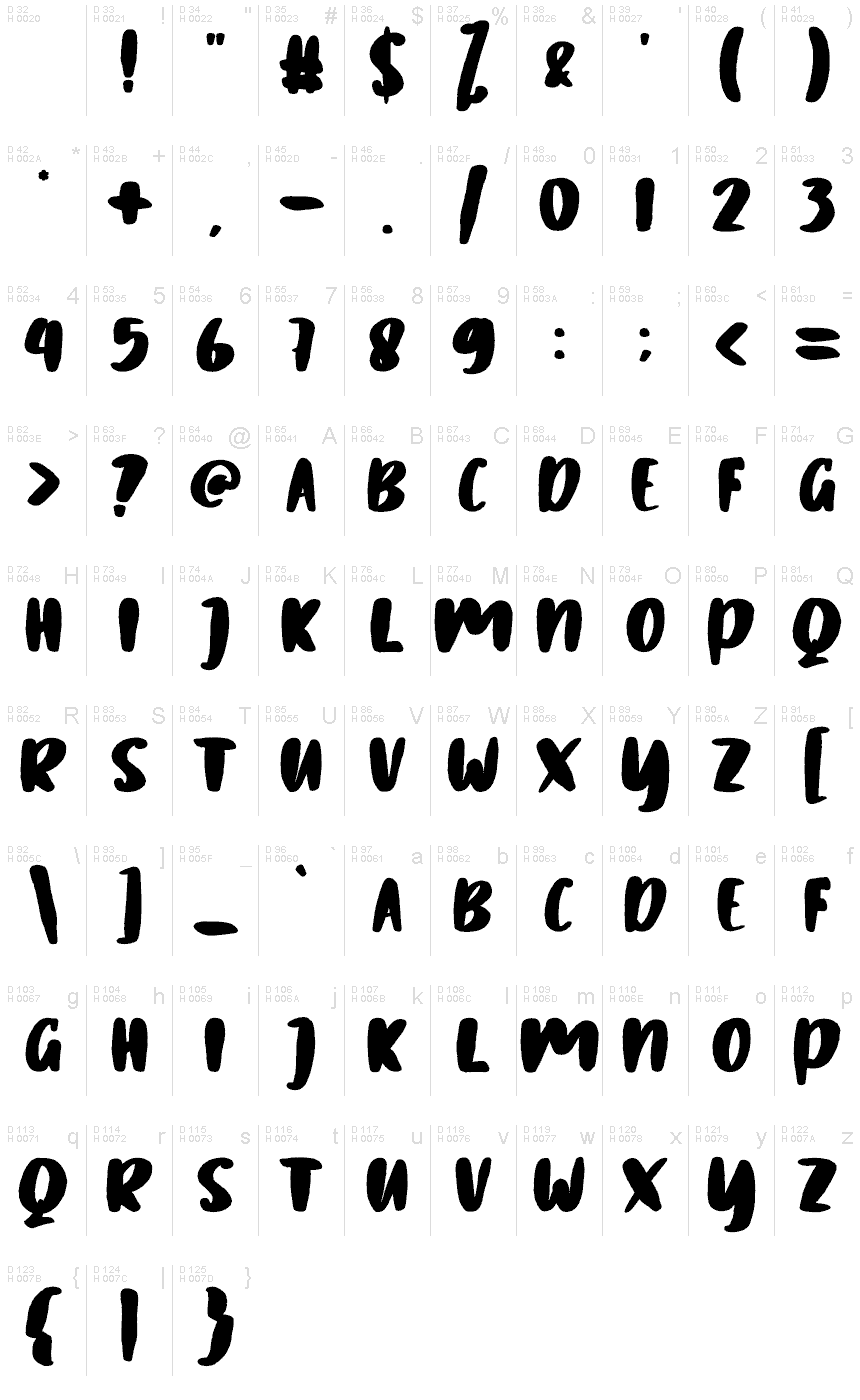
Balles
Balles font by Skiiller Studio is a bold brush font that encapsulates an artistic flair with its expressive and handcrafted feel. The presence of each character delivers a casual vibe, evident in its smooth yet powerful strokes. Its boldness allows it to immediately capture attention while retaining a sense of originality and creativity.
This font’s charm makes it ideal for use in branding projects for creative industries or artisanal products. It can elevate posters, advertising materials, packaging designs, labels, headlines, social media graphics, logos for boutique shops, branding identities, product designs, invitations cards or headings in art-related publications.